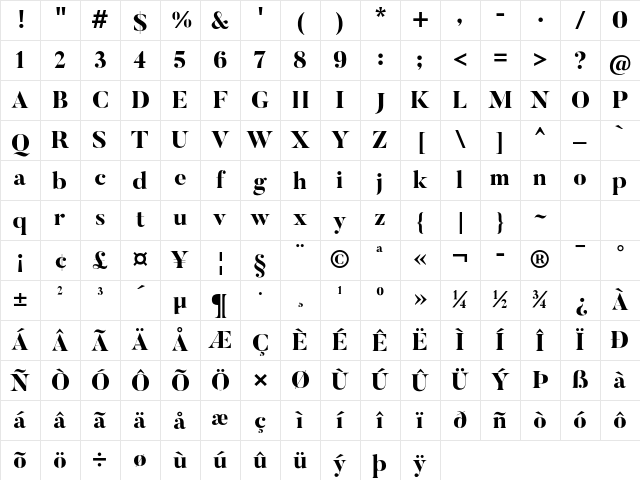
Complete Butler ExtraBold glyph index. Displaying only characters natively supported by Butler ExtraBold font.
Butler is a composed and adaptable typeface that performs quietly and consistently across a wide range of design contexts. Its bold stroke weight gives it real presence on the page.